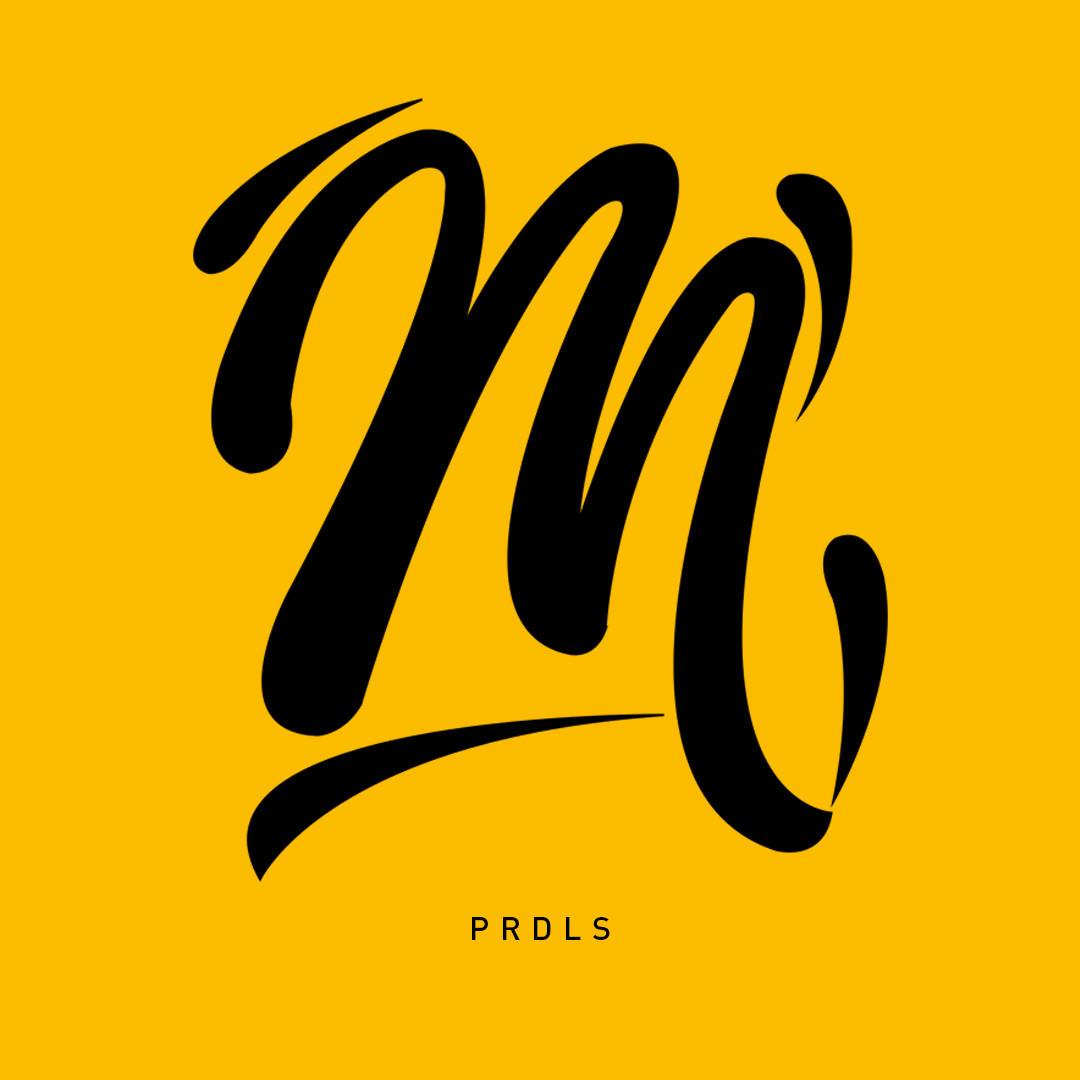
Millitan Font Description
Millitan is a cursive and refined script font. It has a modern, elegant and beautiful look that can be used for logos, branding, invitations, stationery, wedding designs, social media posts, and much more! This font is PUA encoded which means you can access all of the glyphs and swashes with ease!